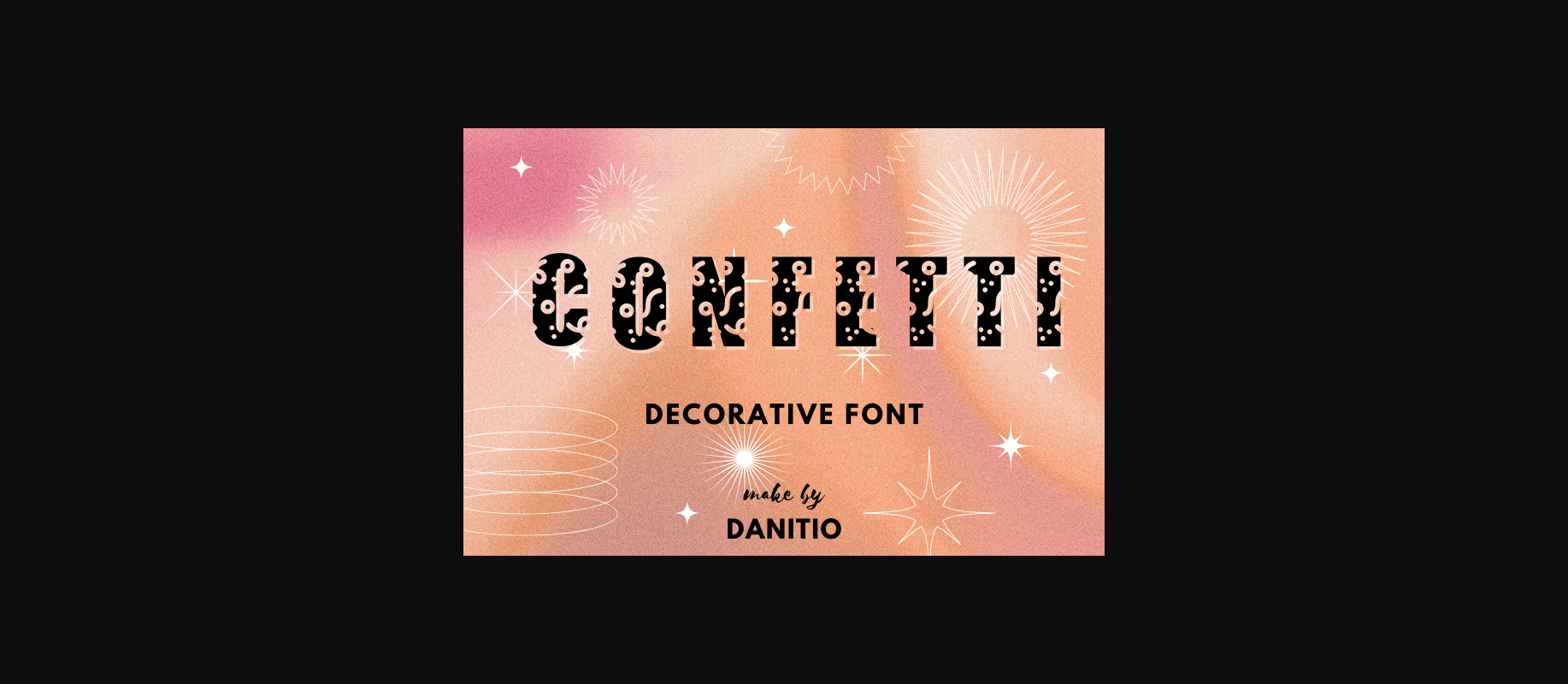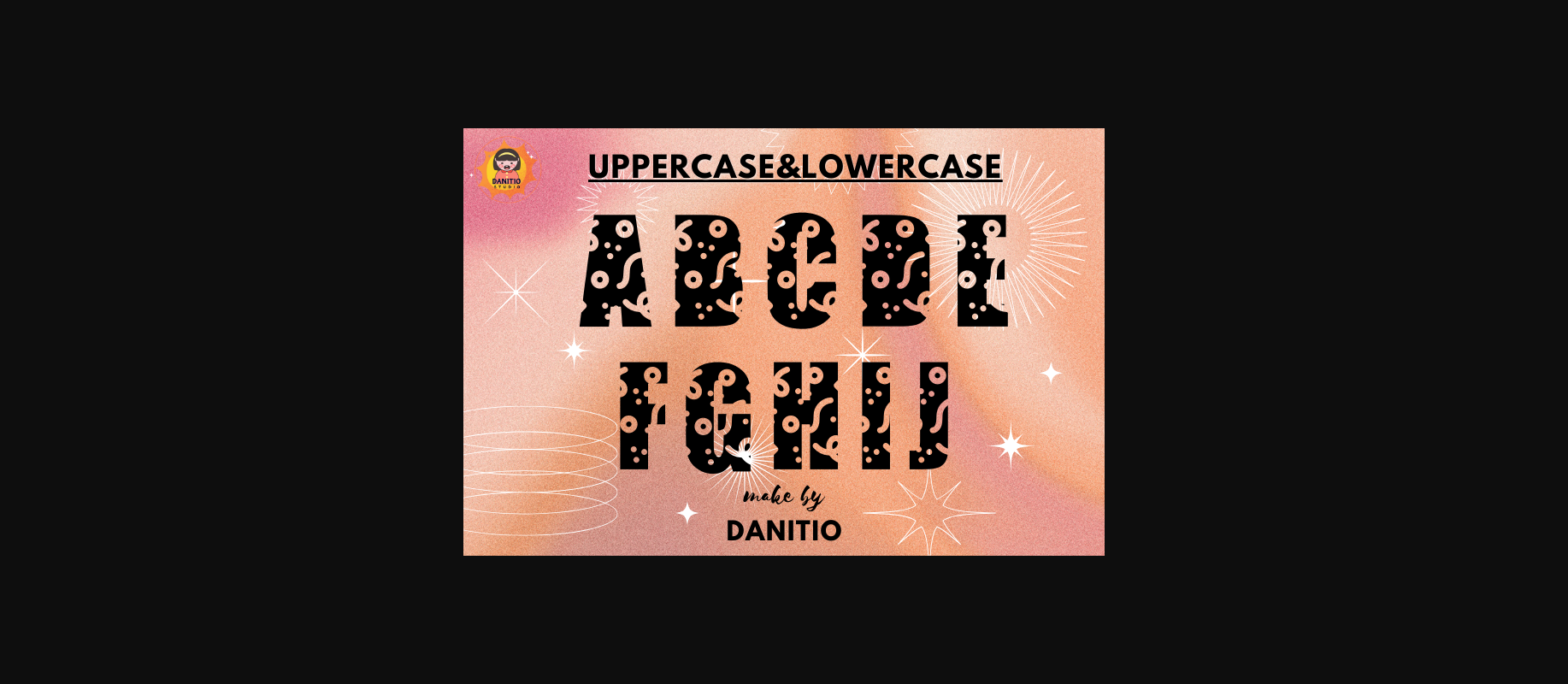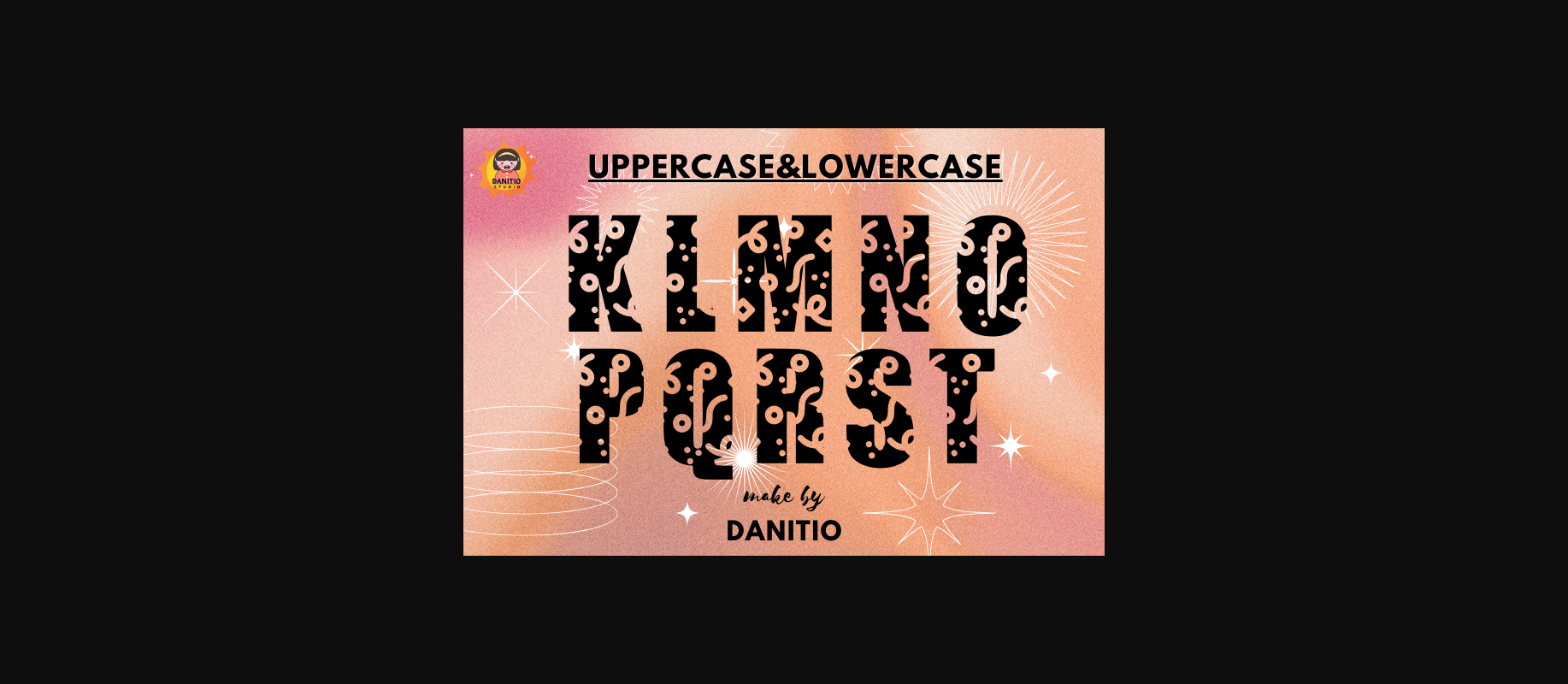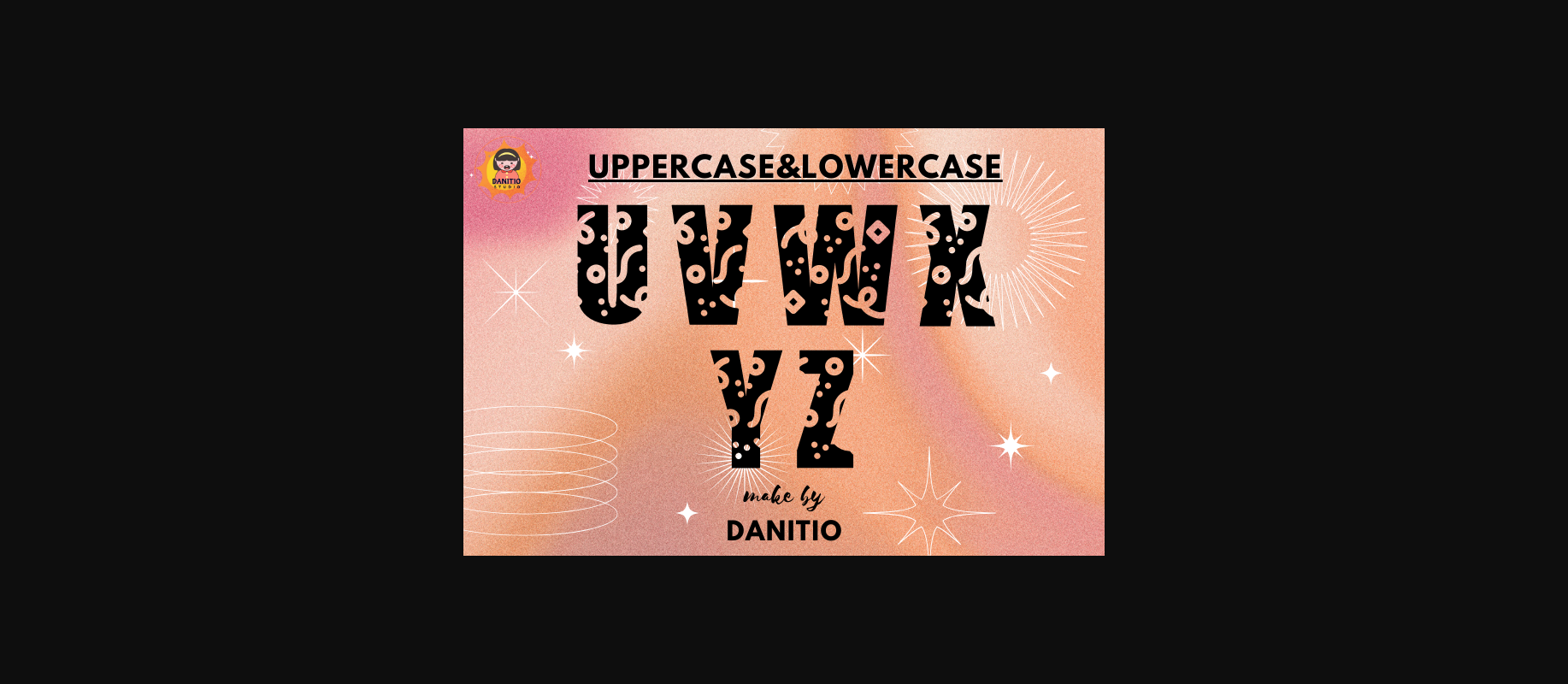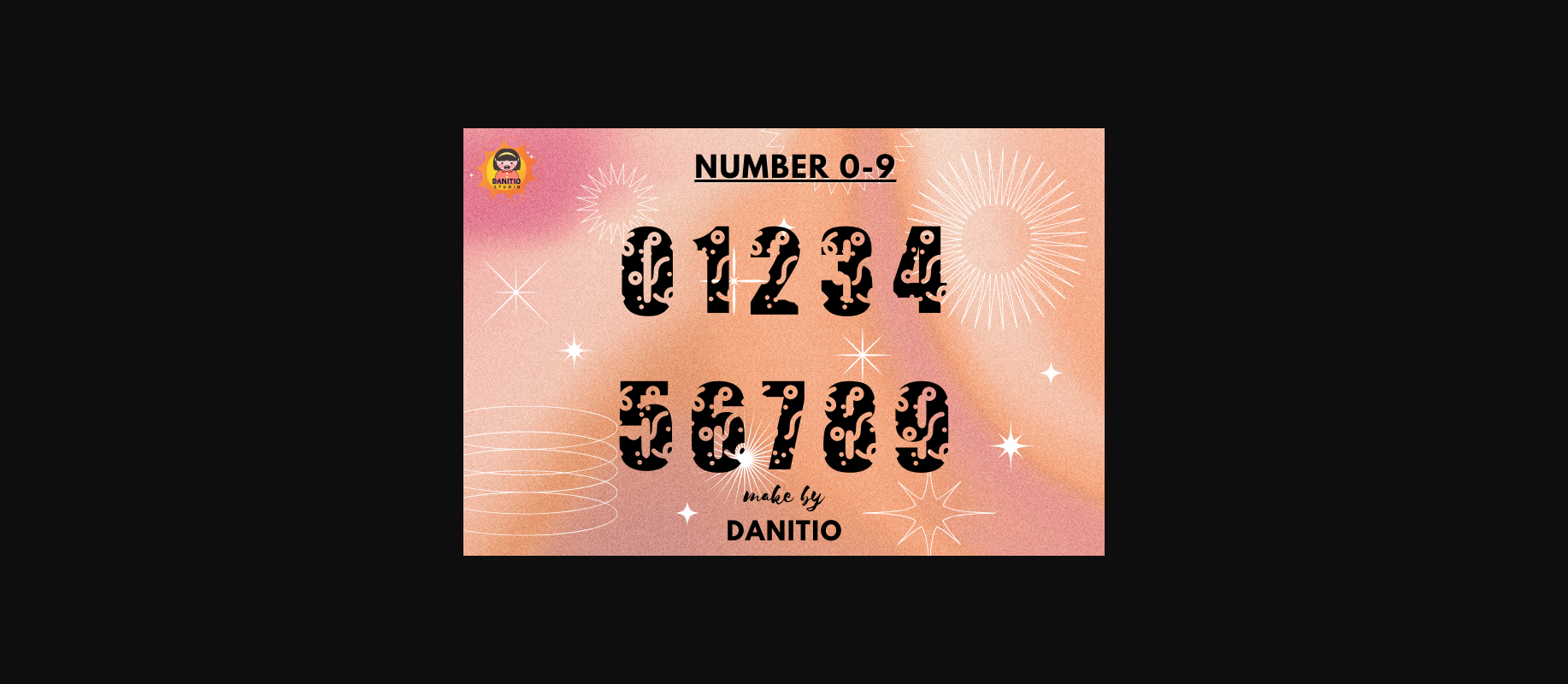
About Confetti Font
Confetti is a decorative font that adds uniqueness and charm to any design! With its friendly and cute appearance, this font will brighten up any design. This style emphasizes cuteness in every design. Great for birthday cards, t-shirts, mugs, tote bags and other items. that you deem appropriate Hope you enjoy my fonts.